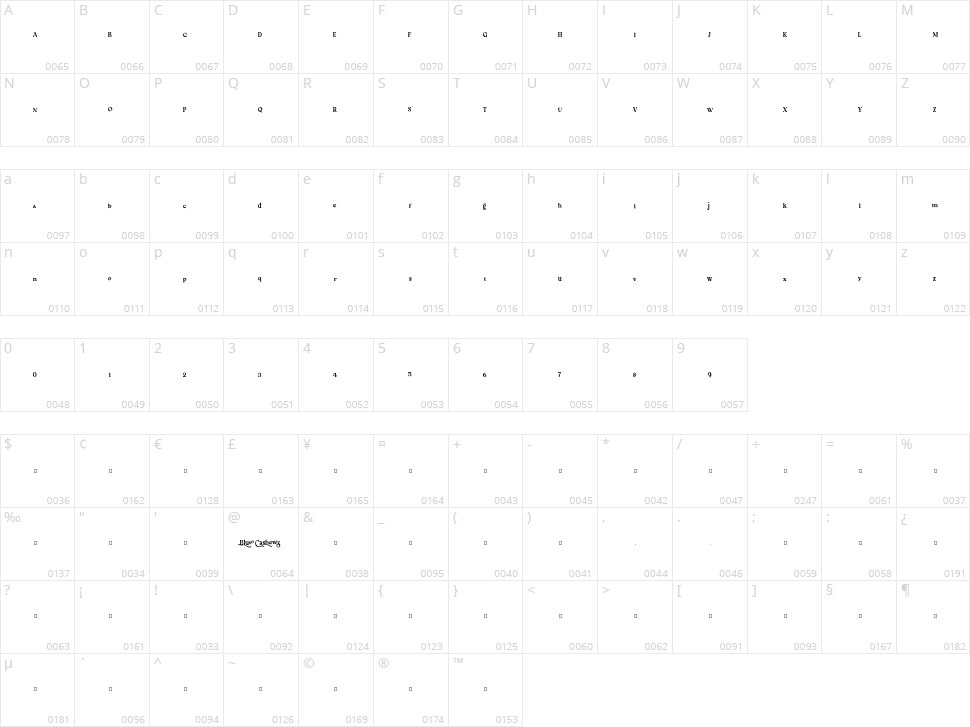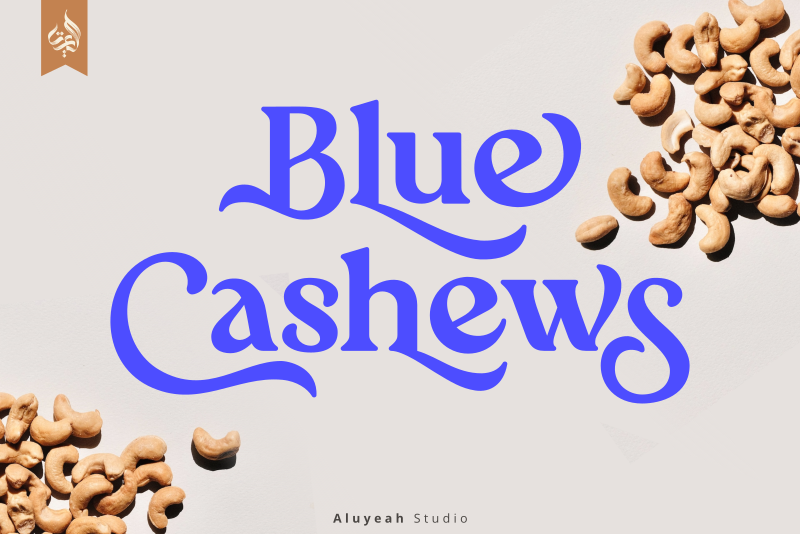
Blue Cashews
To get results like the preview just type B.2l.3ue.2 C.2ash.2ew.2s.3
Coming with 220+ stunning and super easy to use alternates and ligatures.Very suitable for packaging, apps, magazine, headline, website, ads and all type of design project you have.